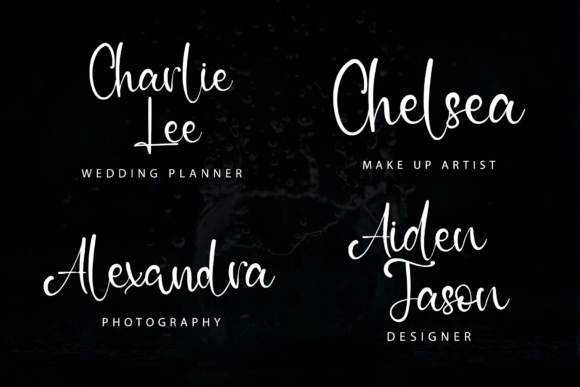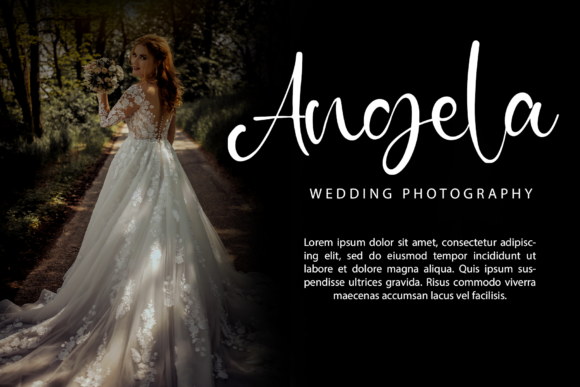
Bursting is a modern and playful handwritten script font. It’s great for crafters and designers. It looks stunning on wedding invitations, thank you cards, quotes, greeting cards, logos, business cards and every other design which needs a handwritten touch.